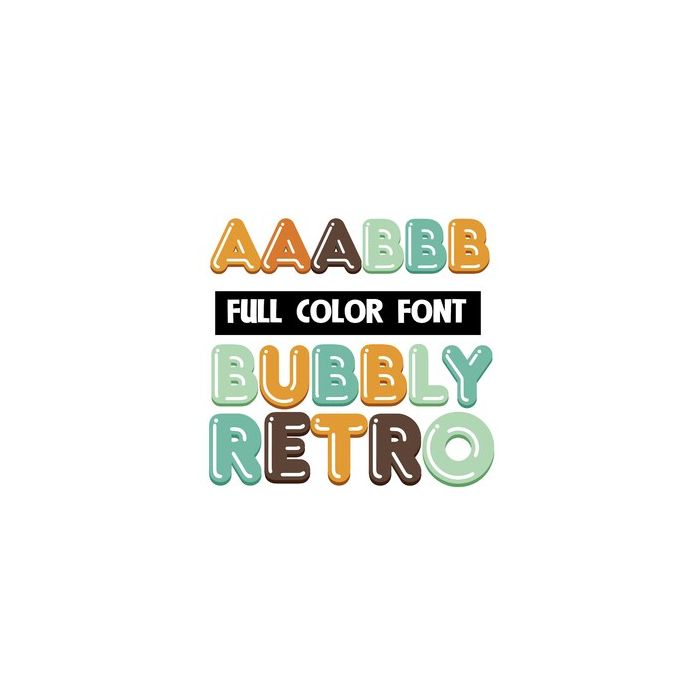
This bubbly font has rounded lettering with a sheen done in a retro/autumn color palette. There is an alt case with an additional color of each letter.